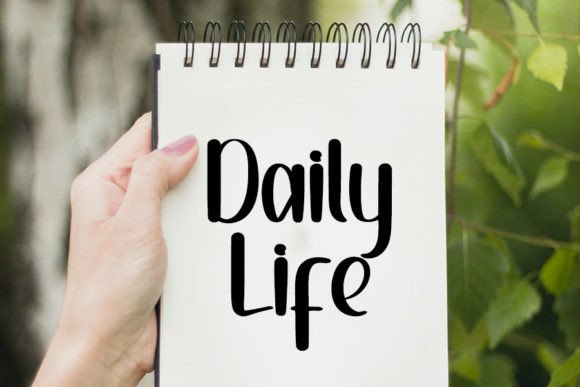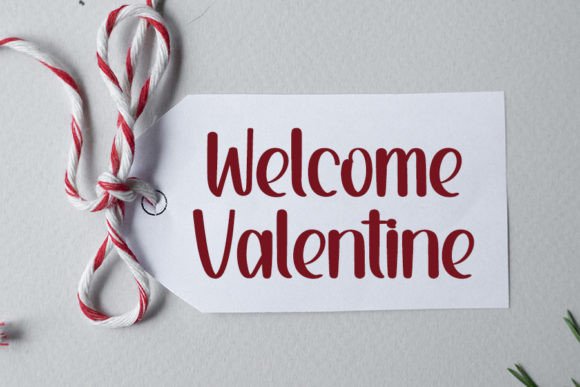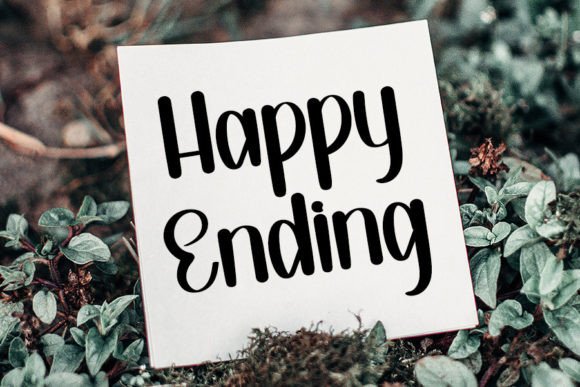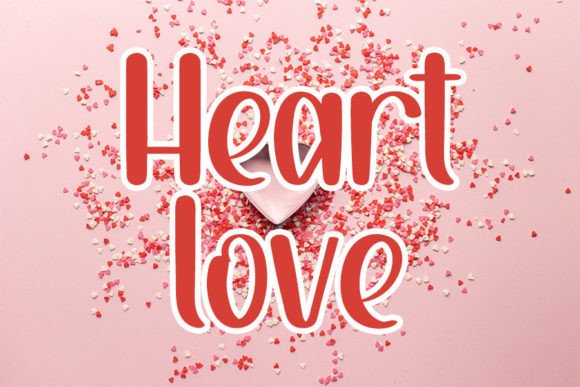
Introducing February Font: The Perfect Handwritten Script for Romantic Designs
Are you looking for a font that can add a touch of romance and elegance to your designs? Look no further than February Font, a beautiful handwritten script font that is perfect for a wide range of applications. From greeting cards to headlines, February Font is guaranteed to bring a sense of whimsy and charm to your next project.
What is February Font?
February Font is a versatile script font that is designed to mimic the look and feel of handwritten text. With its flowing curves and delicate lines, this font is perfect for creating romantic and feminine designs that are sure to capture the attention of your audience. Whether you’re designing a wedding invitation, a Valentine’s Day card, or simply a social media post, February Font is the perfect choice.
Key Features of February Font
So what makes February Font so special? Here are just a few of its key features:
- Handwritten script: February Font is a true handwritten script font, with each letter and number carefully crafted to mimic the look and feel of handwriting.
- Romantic feel: With its flowing curves and delicate lines, February Font is guaranteed to add a romantic feel to your designs.
- Versatile: February Font is perfect for a wide range of applications, from greeting cards to headlines, and can be used for both personal and commercial projects.
- Elegant: February Font has an elegant and sophisticated feel that is sure to elevate your designs and make them stand out.
Uses for February Font
So what can you use February Font for? The possibilities are endless! Here are just a few ideas to get you started:
- Greeting cards: February Font is perfect for creating romantic greeting cards for special occasions like Valentine’s Day, anniversaries, and weddings.
- Headlines: Add a touch of elegance to your headlines with February Font, which is perfect for blog posts, social media updates, and more.
- Wedding designs: February Font is a popular choice for wedding designs, including invitations, save-the-dates, and wedding stationery.
- Social media graphics: Use February Font to create eye-catching social media graphics that are sure to stand out.
Why Choose February Font?
So why should you choose February Font for your next project? Here are just a few reasons:
- Unique: February Font is a unique and distinctive font that will set your designs apart from the crowd.
- High-quality: February Font is a high-quality font that is designed to produce crisp, clear text at any size.
Tips for Using February Font
Here are a few tips for getting the most out of February Font:
- Use it sparingly: February Font is a bold and elegant font, so use it sparingly to add emphasis to your designs.
- Pair it with other fonts: February Font pairs well with other fonts, so don’t be afraid to experiment with different combinations.
- Experiment with colors: February Font looks great in a variety of colors, so experiment with different shades and hues to find the perfect look for your design.
In conclusion, February Font is a beautiful and versatile handwritten script font that is perfect for adding a touch of romance and elegance to your designs. With its flowing curves and delicate lines, this font is guaranteed to capture the attention of your audience and bring a sense of whimsy and charm to your next project. So why wait? Download February Font today and start creating stunning designs that will leave a lasting impression!